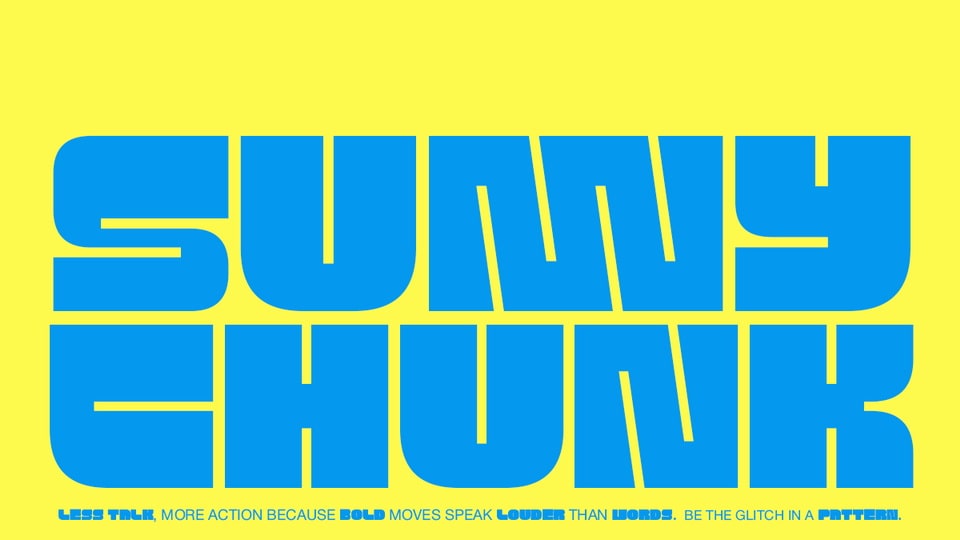
Download Sunny Chunk font, a bold and groovy display typeface with a modern retro touch. Its condensed, chunky letterforms bring a strong visual impact, making it perfect for posters, headlines, packaging, music covers, and street-style branding.